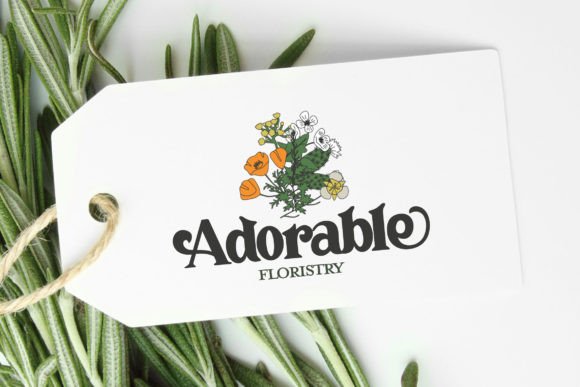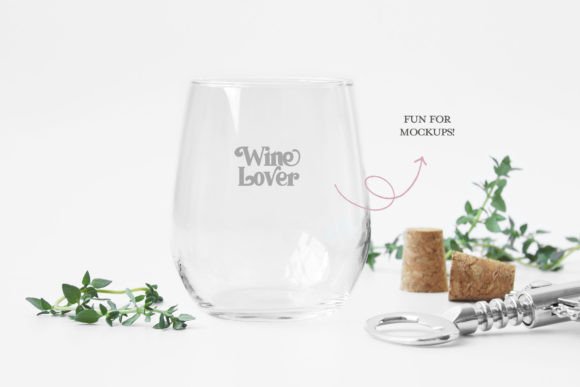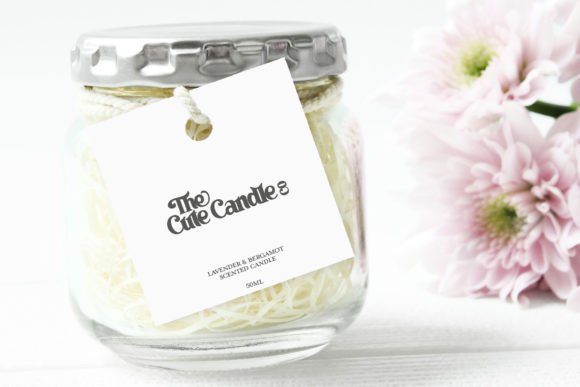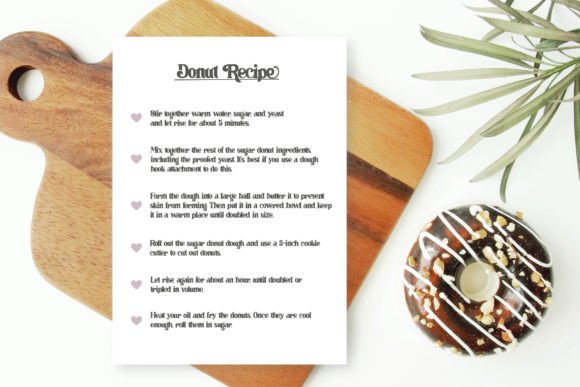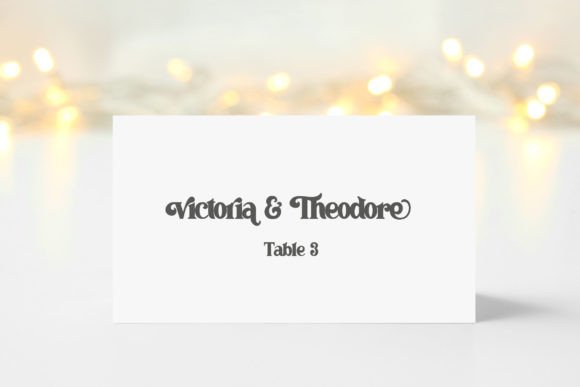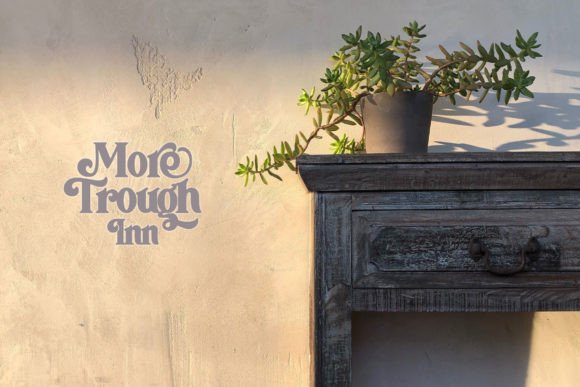
Enter Kindly Font, a charming serif font designed to add a playful touch to any project. With its natural and unique style, Kindly Font is the perfect fit for a wide range of designs, from branding and marketing materials to digital products and publications. Whether you’re a seasoned designer or just starting out, Kindly Font is a valuable asset to have in your toolkit.
So why choose Kindly Font for your next project? The answer is simple: it’s incredibly versatile and adaptable, allowing you to push the boundaries of your creativity and bring your unique vision to life.
Kindly Font Key Features
- Unique Characteristics: The font features a unique blend of modern and vintage elements, making it suitable for a wide range of design projects, from contemporary to traditional.
- Font Weight: The font includes 6 weights: Light, Regular, Medium, Bold, Heavy, and Black, allowing designers to achieve the desired level of emphasis and contrast.
Kindly Font Review
As a designer, I was excited to dive into the Kindly Font and see what it had to offer. ✨ One of the things that immediately stood out to me was the font’s friendly and approachable aesthetic. It’s perfect for projects where you want to convey a sense of warmth and approachability.
Some of the key features of the Kindly Font that I appreciated include:
- ✨ Friendly and approachable aesthetic, making it perfect for projects where you want to convey a sense of warmth and approachability.
- ✨ Highly legible, even at small font sizes, making it great for body text.
- ✨ Wide language support, making it a great choice for projects that require multiple languages.
However, there are a few limitations to the Kindly Font that I’d like to mention:
- ⚠️ Limited typographic options, which can make it feel a bit restrictive for more complex projects.
- ⚠️ Not as versatile as some other fonts, making it better suited for specific types of projects (e.g. blogs, social media, etc.).
Overall, I’d say the Kindly Font is a solid choice for designers who are looking for a friendly and approachable font. While it may not be the best choice for every project, it’s a great option for those who want to convey a sense of warmth and approachability.
Tips for Getting the Most Out of Kindly Font
Kindly Font is perfect for creating elegant and sophisticated designs. Here are some tips to get the most out of it:
- Use it for titles, headings, and body text to create a cohesive look.
- Pair it with other fonts to create a unique and eye-catching design.
Kindly Font is ideal for:
- Personal blogs and websites.
Alternatives to Kindly Font for Designers
Lato is a popular sans-serif font designed by Łukasz Dziedzic. It is highly legible and suitable for body text, especially in digital interfaces. Use Lato when you need a clean, modern look for your website or application.
Compared to Kindly Font, Lato is more versatile and has a larger font family, making it suitable for various design projects. However, Kindly Font has a softer, more rounded feel that may be preferred for certain designs.
Merriweather is a classic serif font designed by Eben Sorkin. It is ideal for body text and is often used in publications and websites that require a traditional look. Use Merriweather when you want to add a touch of sophistication to your design.
Compared to Kindly Font, Merriweather has a more formal, traditional feel, while Kindly Font is more modern and playful. Merriweather is also a bit more formal, making it suitable for corporate or academic designs.